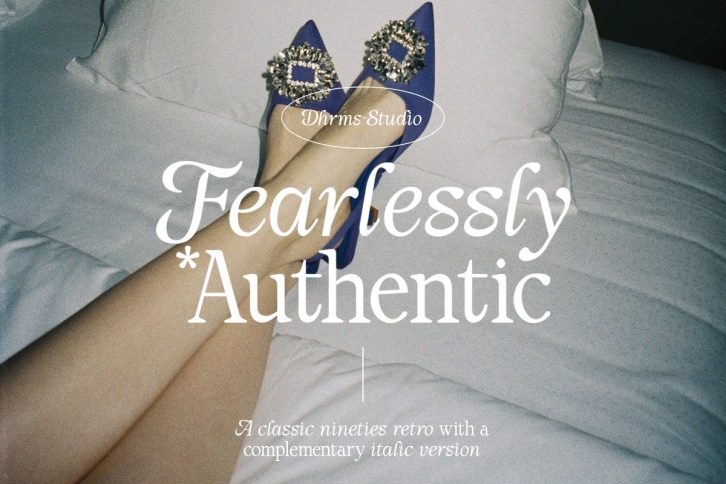
Fearlessly Authentic is a trendy and unique font with an authentic style. It was designed by Dharmas Studio and it's a great choice for creative people who need such a font. It was released on July 9, 2022 and the file size is 10.70 MB. Fearlessly Authentic will add an organic vibe to any design idea!